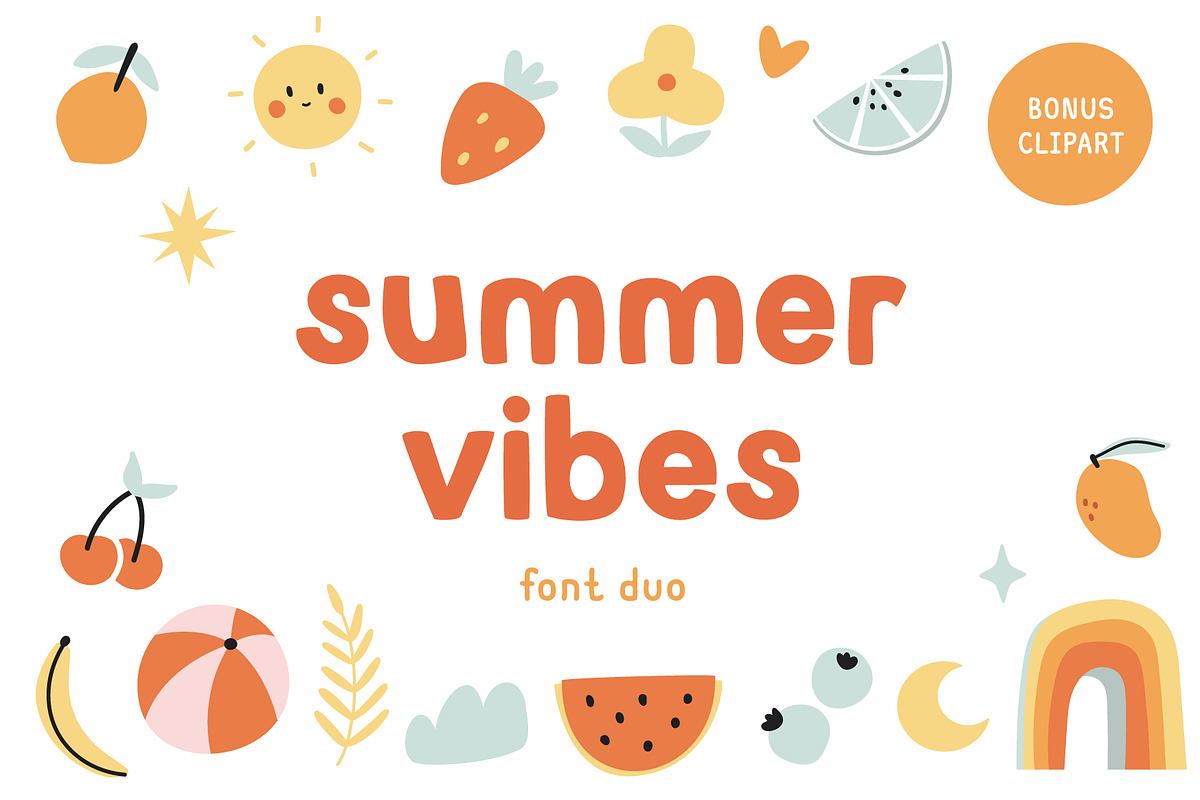
Summer Vibes | Font Duo Free Download
Summer Vibes | Font Duo Free Download is a playful and versatile font pairing that perfectly captures the carefree spirit of the summer season. Combining a bold display font with a light, handwritten script, this duo is ideal for beach-themed branding, event invitations, summer promotions, social media posts, and fun logos.
The bold, geometric display font brings structure and confidence, while the script font adds a relaxed, personalized feel. Together, they create a harmonious blend of modern style and casual elegance.